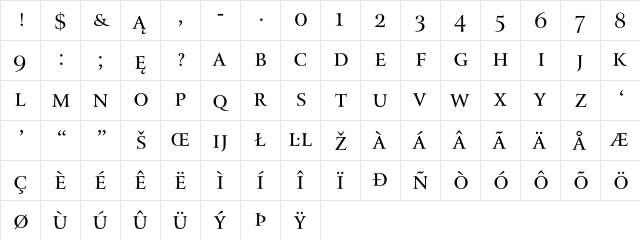
Bitstream Arrus Small Cap
Design Context for Bitstream Arrus Typeface
Bitstream Arrus offers clean, dependable letterforms without strong stylistic allegiance, making it a practical choice for designers who need flexibility.